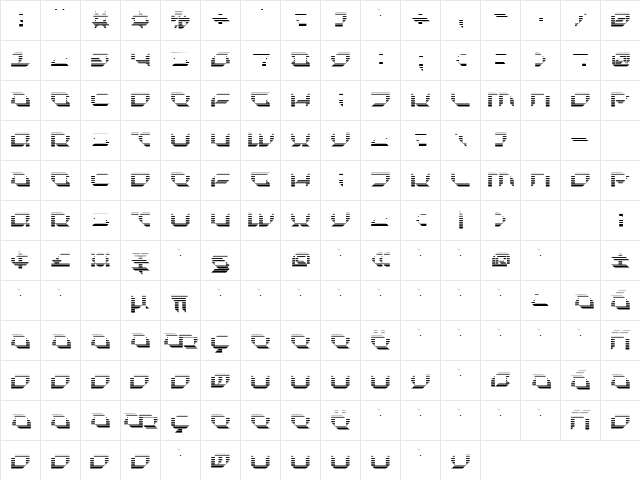
Pluranon Fade Font Preview
Pluranon Fade
Pluranon Fade Font Details
Design Context for Pluranon Typeface
Pluranon takes a measured approach to typography — its balanced proportions and neutral character make it a reliable workhorse for both digital and print work.